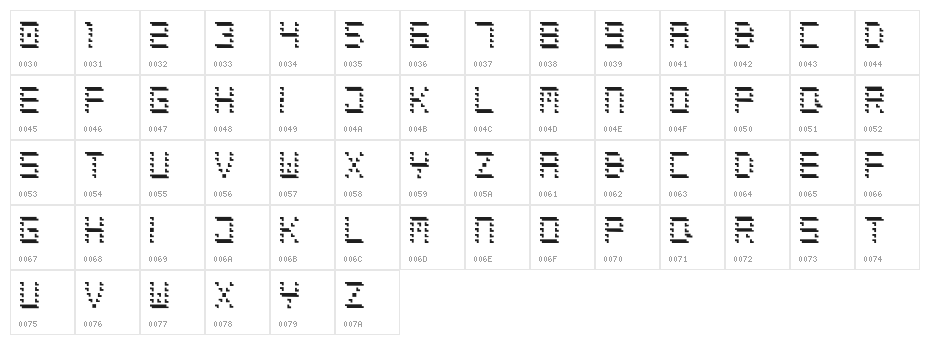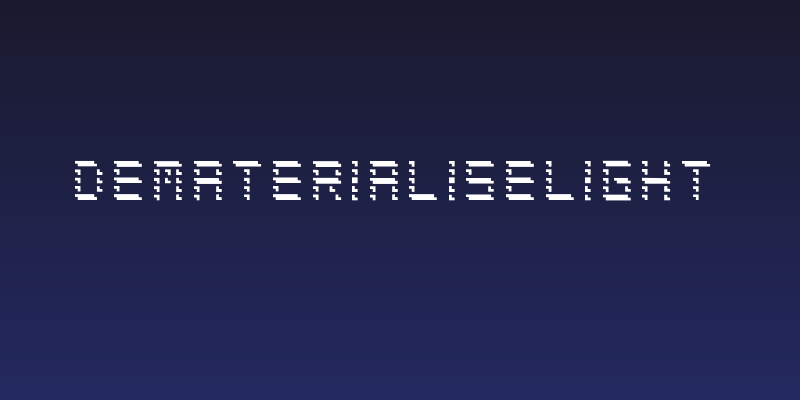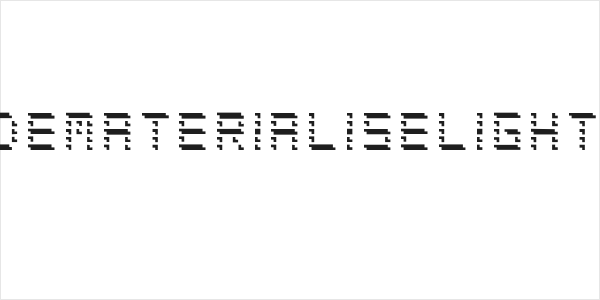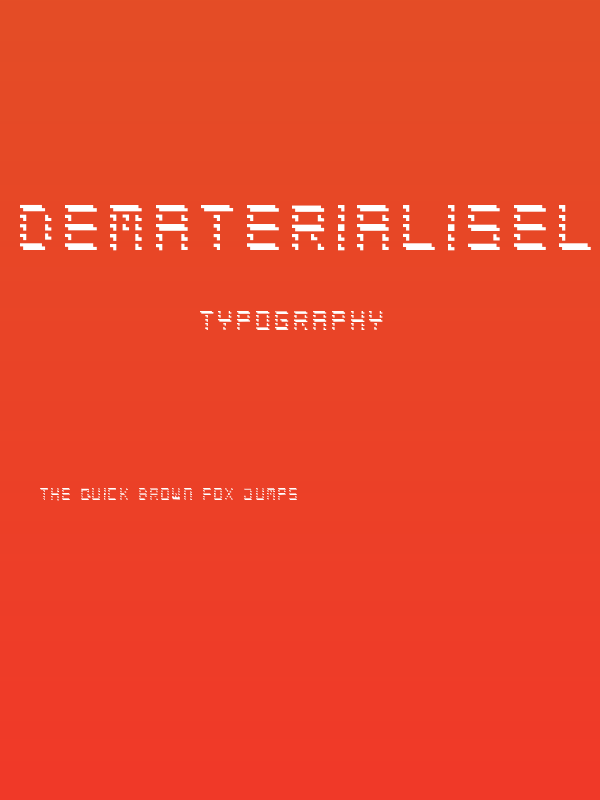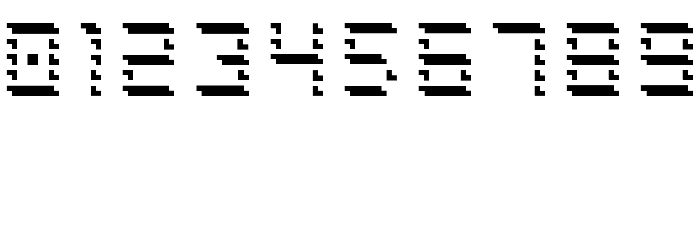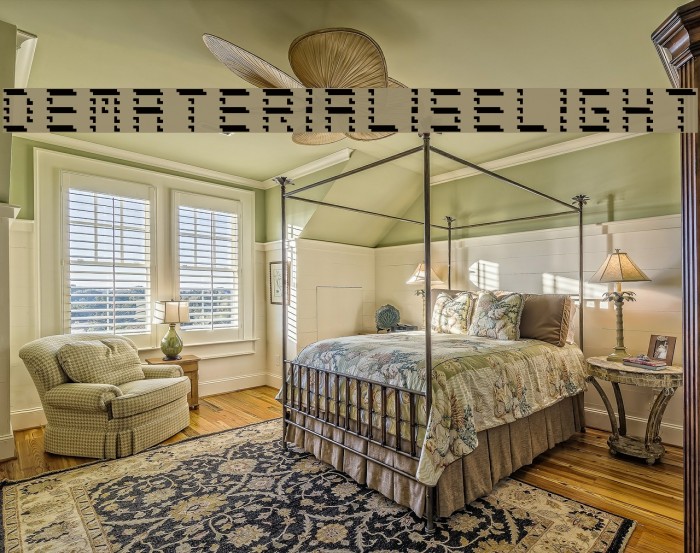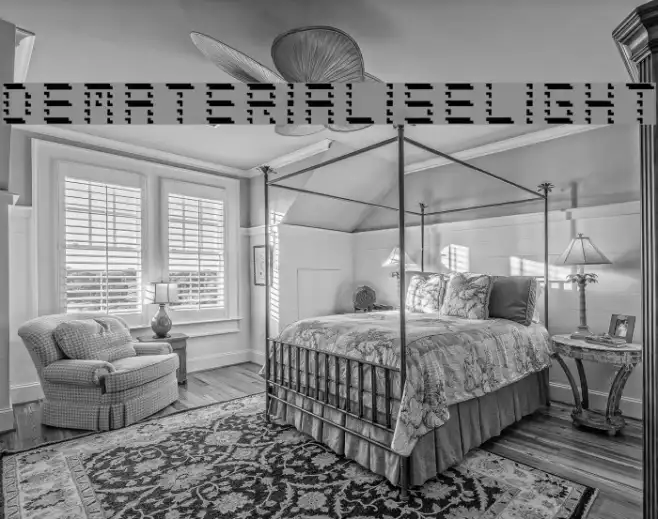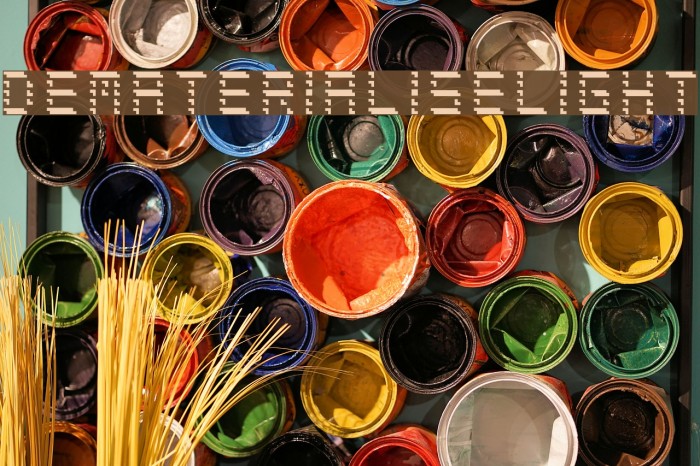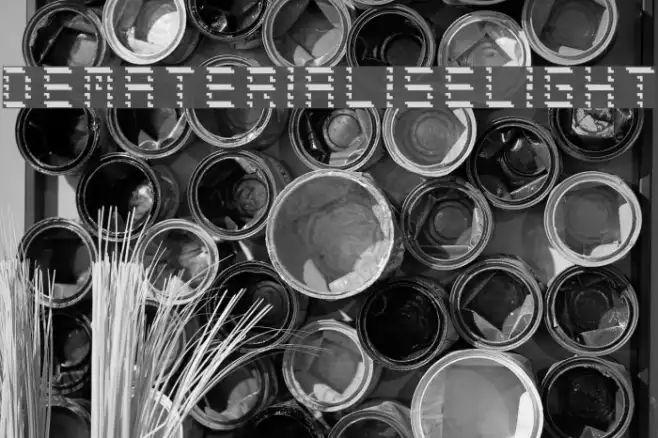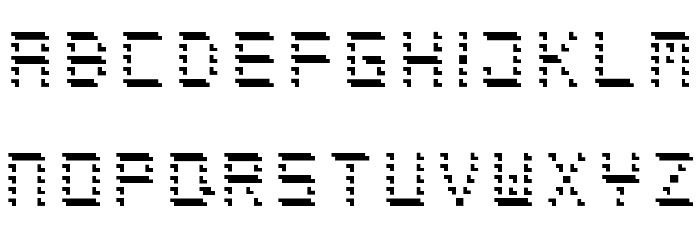
DematerialiseLight Font
DematerialiseLight Description
This font features a unique, futuristic design characterized by its pixelated, fragmented appearance. Each character is composed of a series of small, disconnected blocks that create a digital, high-tech aesthetic. The uppercase and lowercase letters maintain a consistent style, with a geometric structure that is both modern and innovative. Numbers and special characters follow the same design principles, ensuring uniformity across the typeface. The font's distinct look makes it ideal for projects that require a contemporary, digital feel, such as tech-related branding or digital art.
| Use Case | Logos, Headlines, Digital Art |
| Proposed Projects | Ideal for tech branding, digital art, video game design, and futuristic-themed projects. |